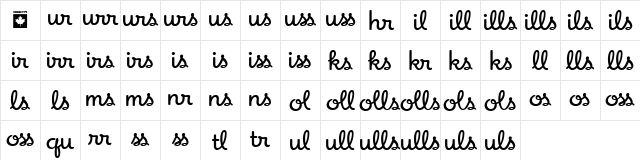
Apricot - Ligatures Two Regular
Foundry: Canada Type
Design Context for Apricot - Ligatures Two
Apricot - Ligatures Two is a composed and adaptable typeface that performs quietly and consistently across a wide range of design contexts.